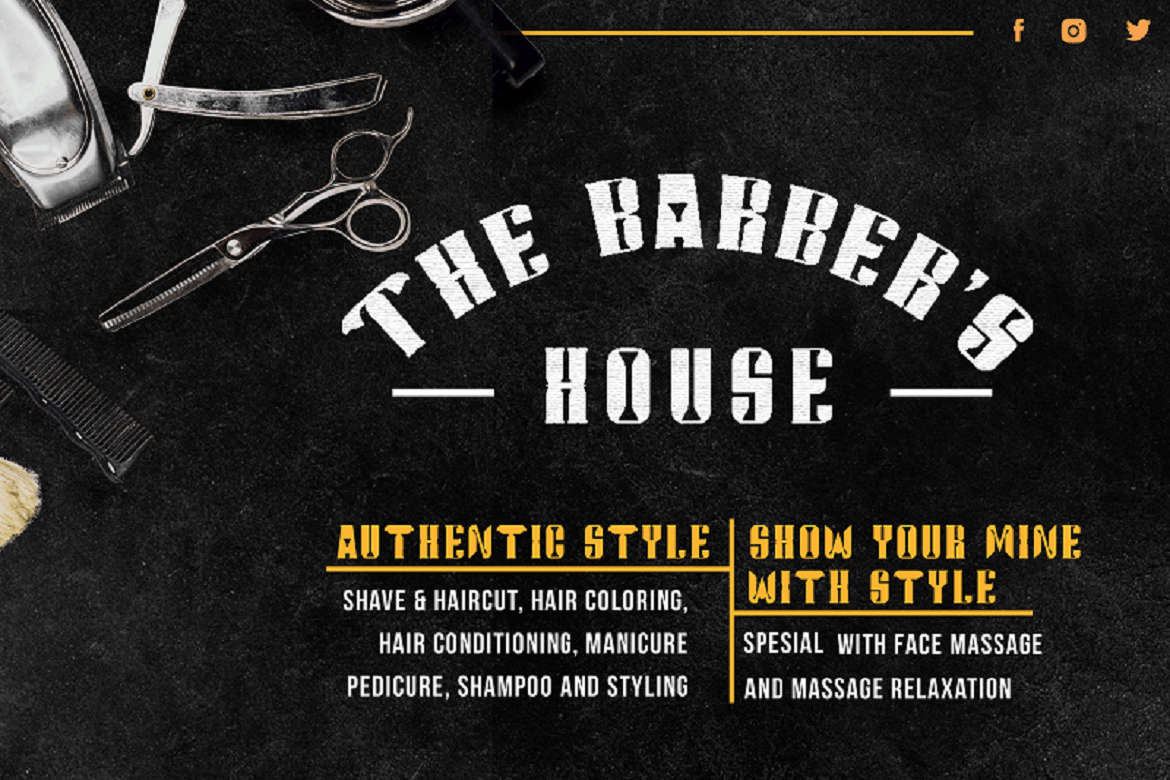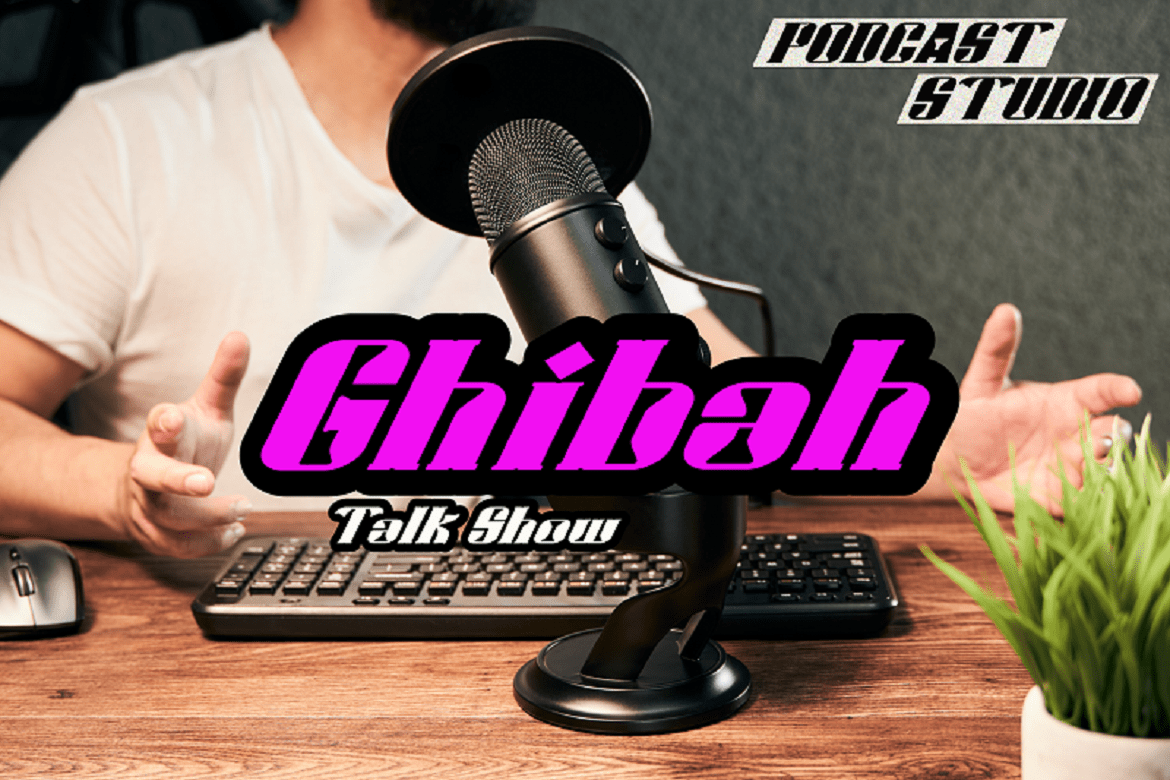
Jackelon Display Font
This is a font that shows the elegant side of a letter with a special character so that it displays stunning results, jackelon is a font that is perfect for banners, posters, gaming, foods, labels. Our fonts are specially designed by providing alternate features 3 regular, bold, italic options. This font really helps you create beautiful projects.